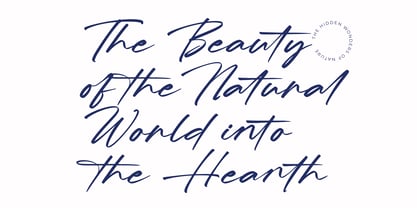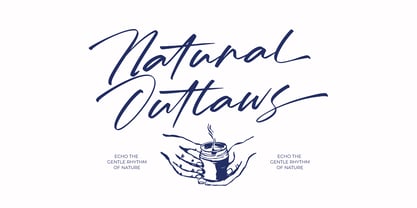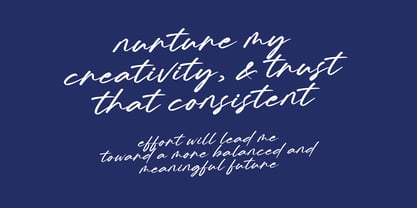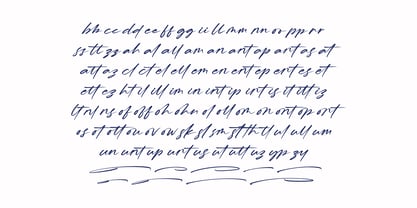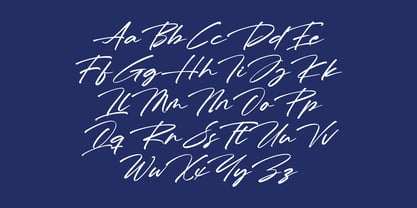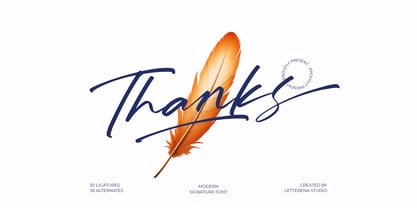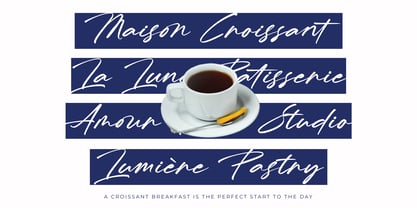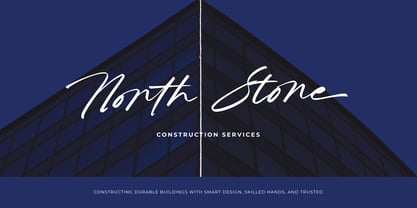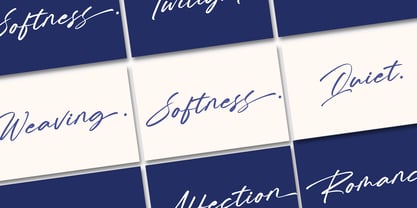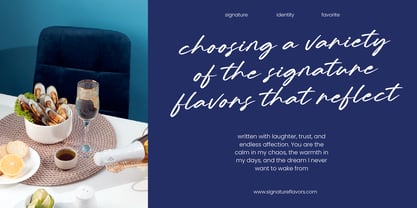
Reliska Bondes
The Reliska Bondes Font Family was designed by Heru Utama Putra and published by Letterena Studios. Reliska Bondes contains 2 styles and family package options. More about this family
Reliska Bondes is a modern signature font designed with smooth handwritten elegance and a refined personal touch. Its long sweeping strokes, balanced curves, and natural pen-flow effect make it ideal for branding, photography watermarks, product packaging, beauty and fashion logos, invitations, social media posts, and any project that needs a premium handwritten signature feel. With 92 ligatures and 26 alternates, this font gives you full versatility to craft authentic, stylish, and luxurious typography.